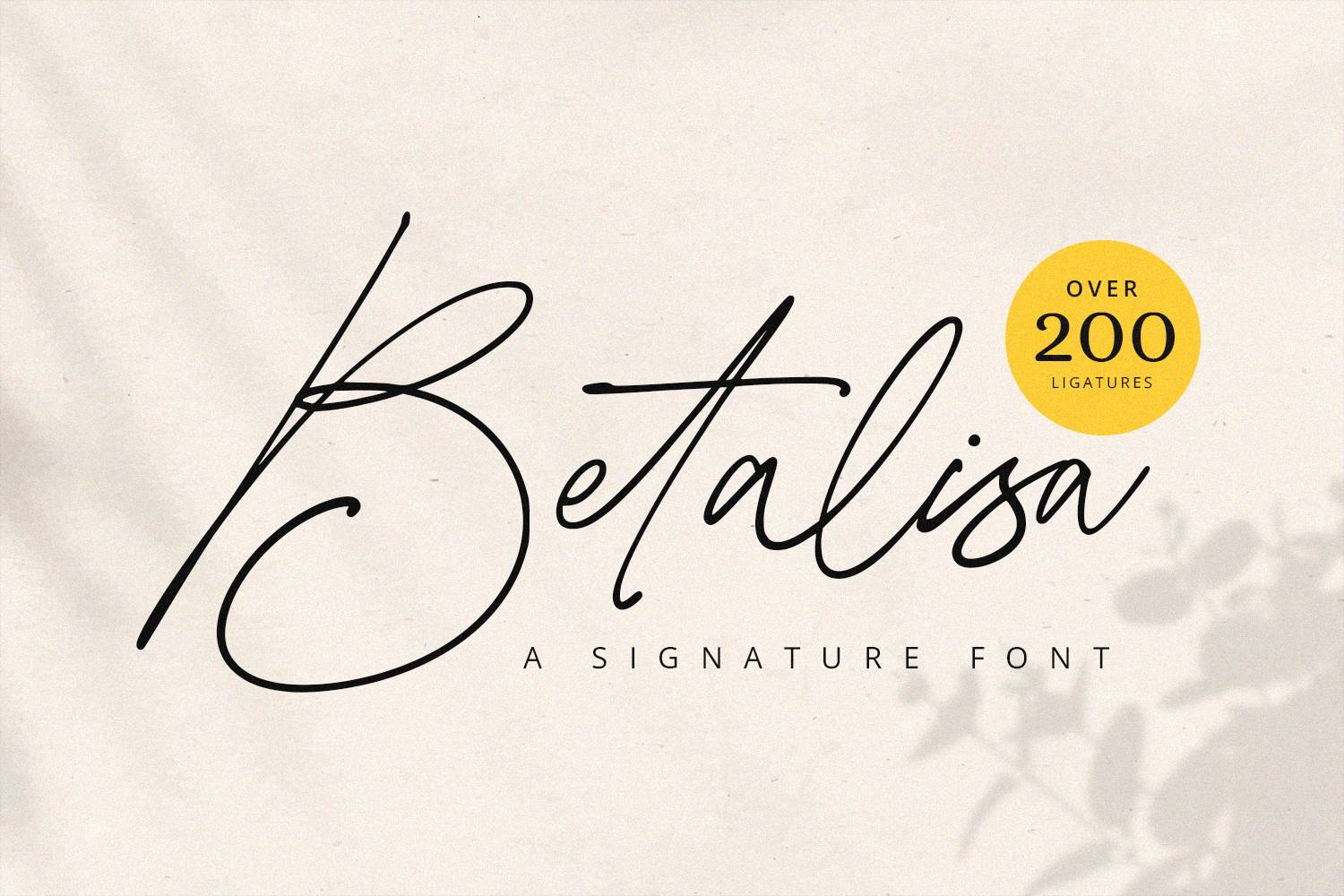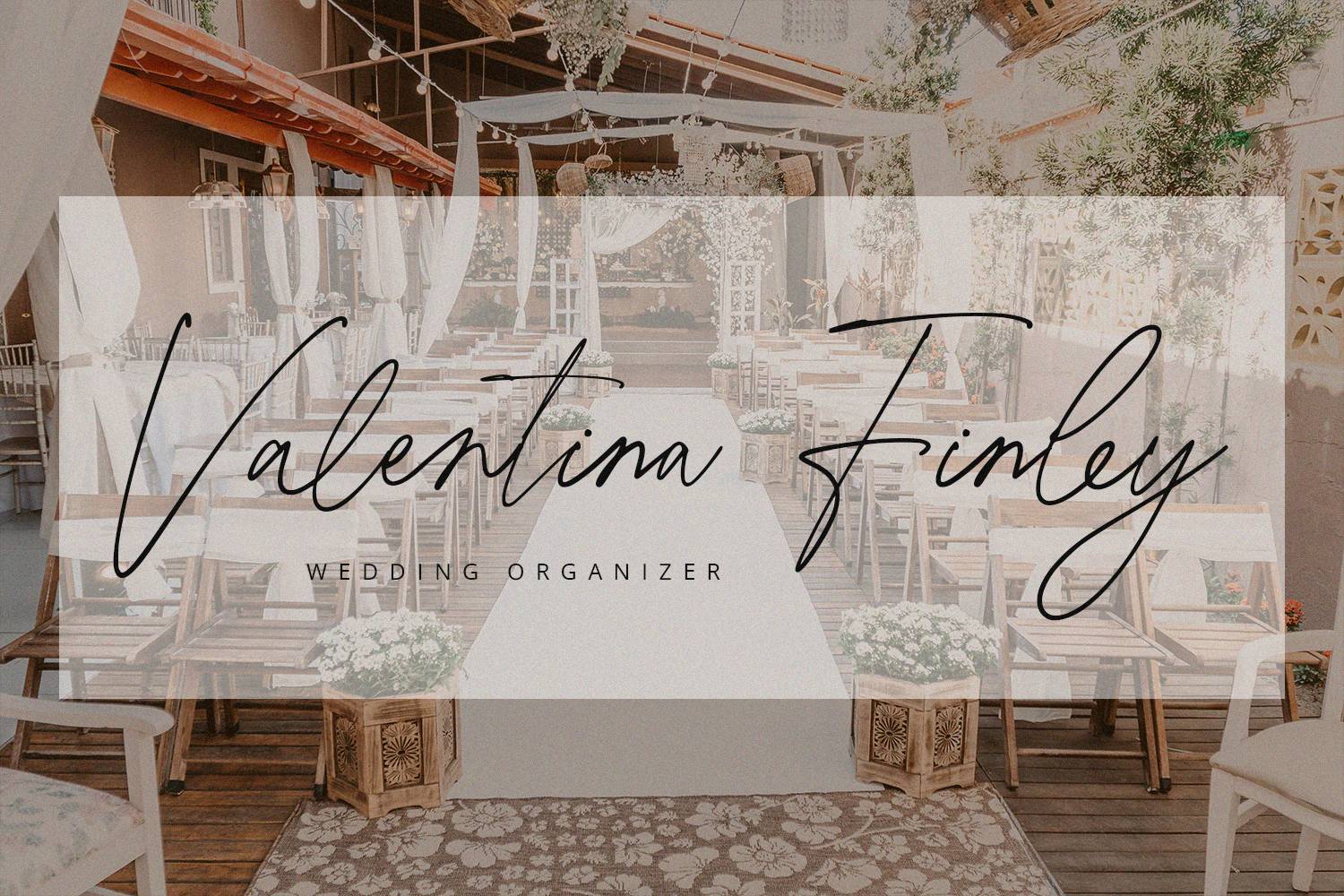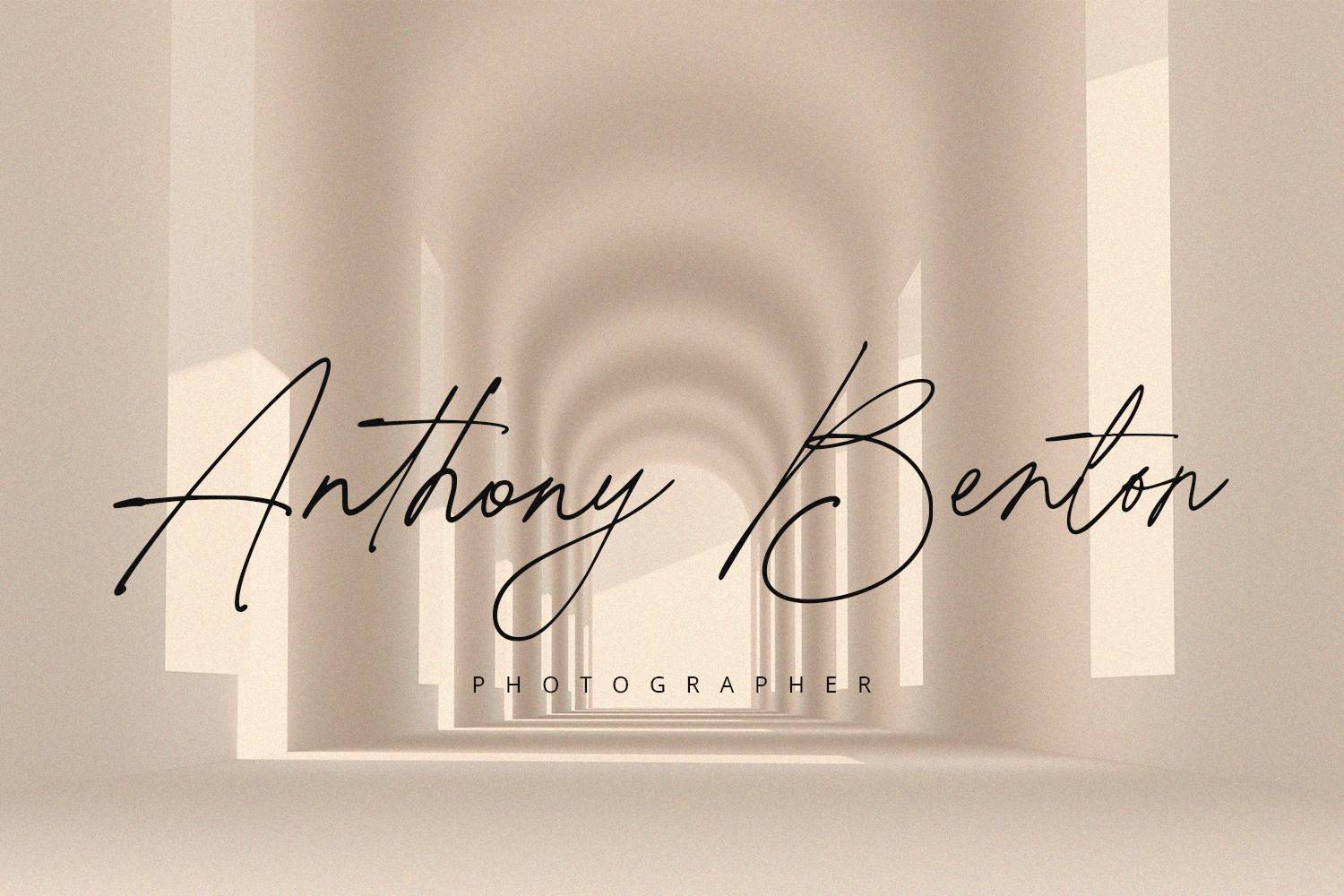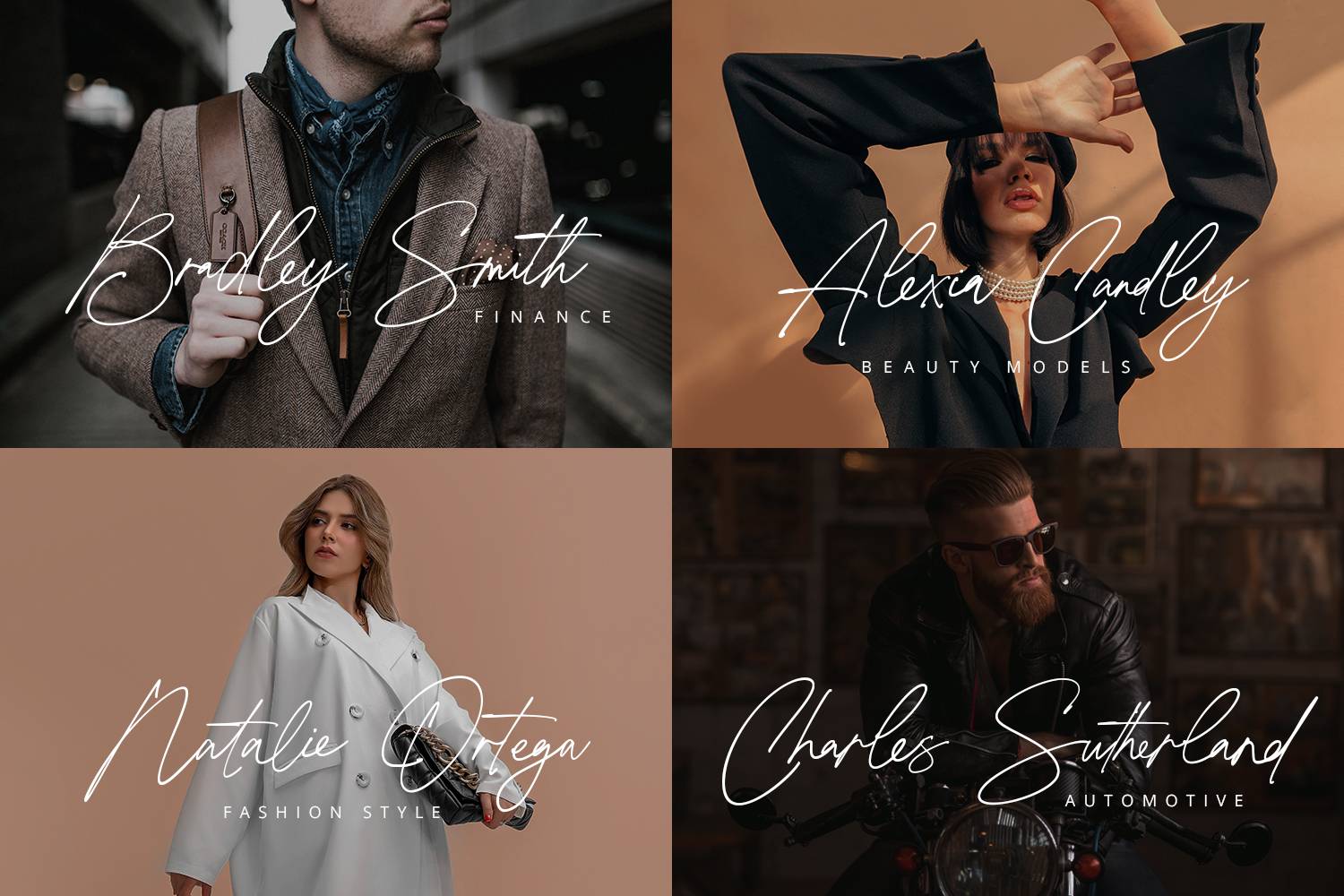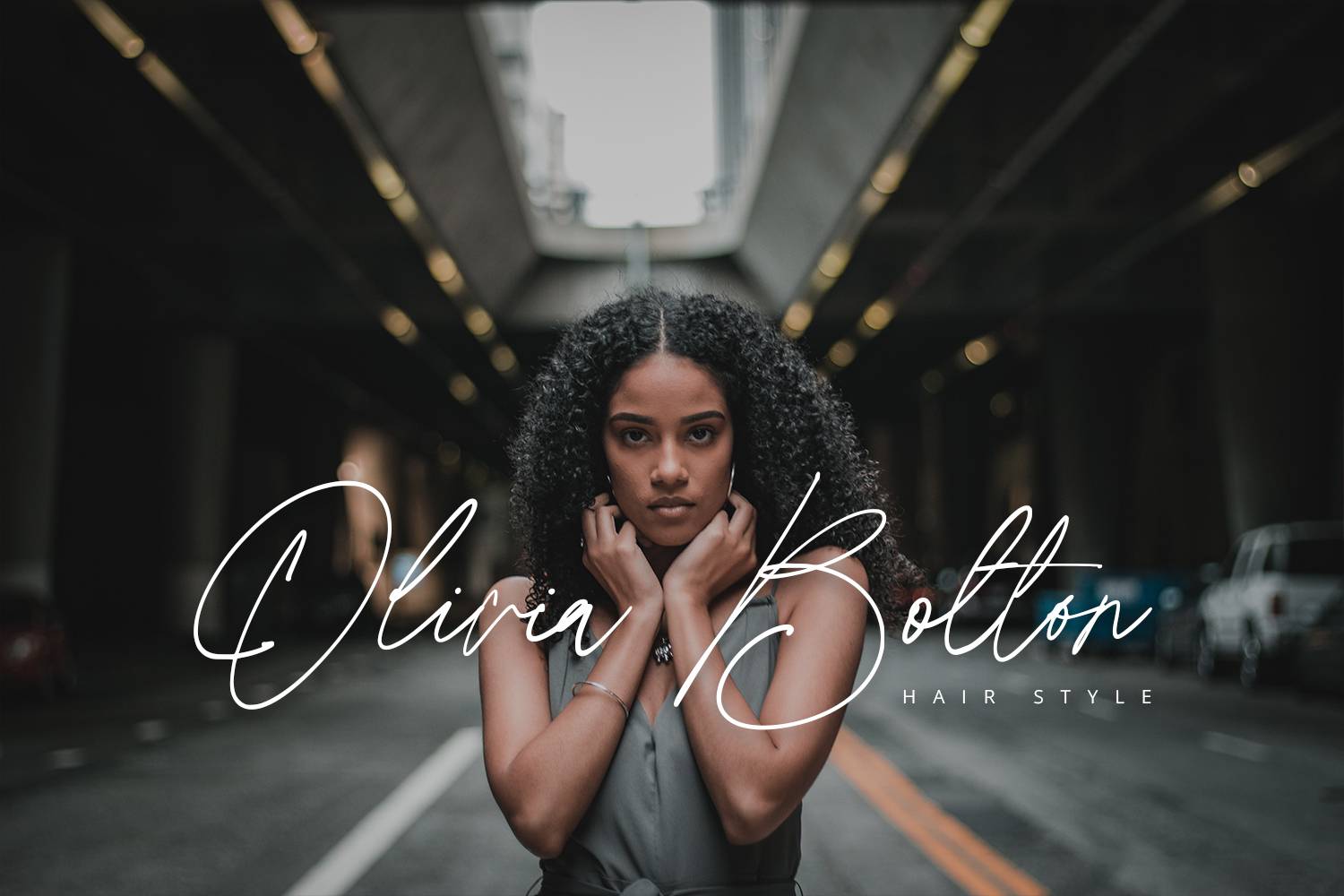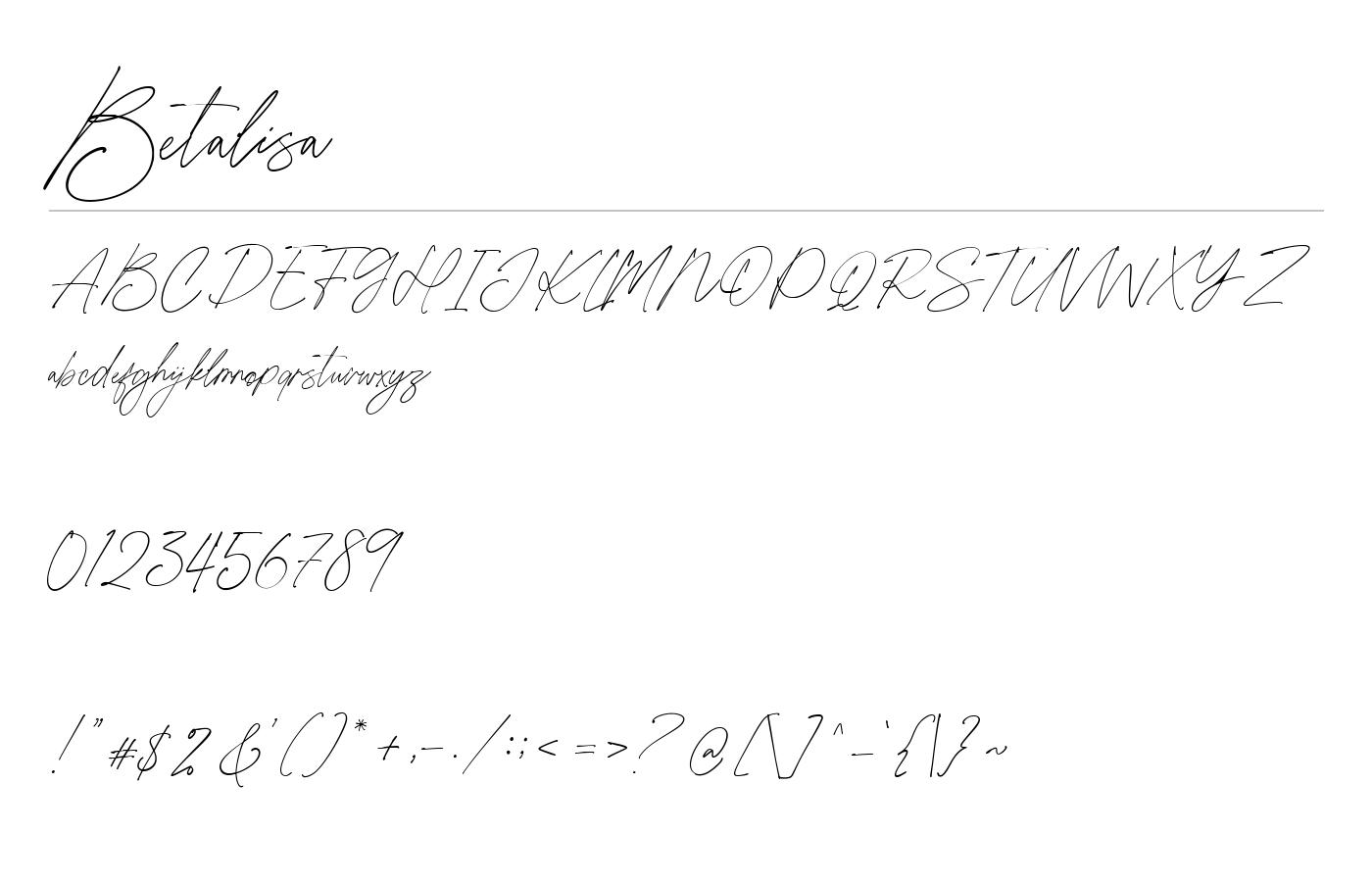
Betalisa is a delicate and elegant handwritten script font characterized by its thin, flowing lines and graceful letterforms. Its light weight and natural, slightly irregular strokes give it a personal and artistic touch, making it ideal for sophisticated branding, wedding invitations, and feminine design projects. This font adds a sense of charm and refinement wherever a soft, handwritten feel is desired.
Betalisa Font
About Betalisa Font
| Font family | Betalisa Font |